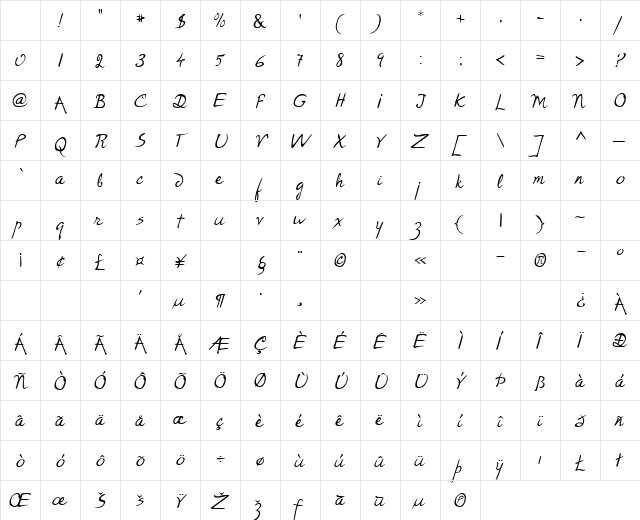
Complete Rodin Regular glyph index. Displaying only characters natively supported by Rodin Regular font.
Rodin is a composed and adaptable typeface that performs quietly and consistently across a wide range of design contexts.